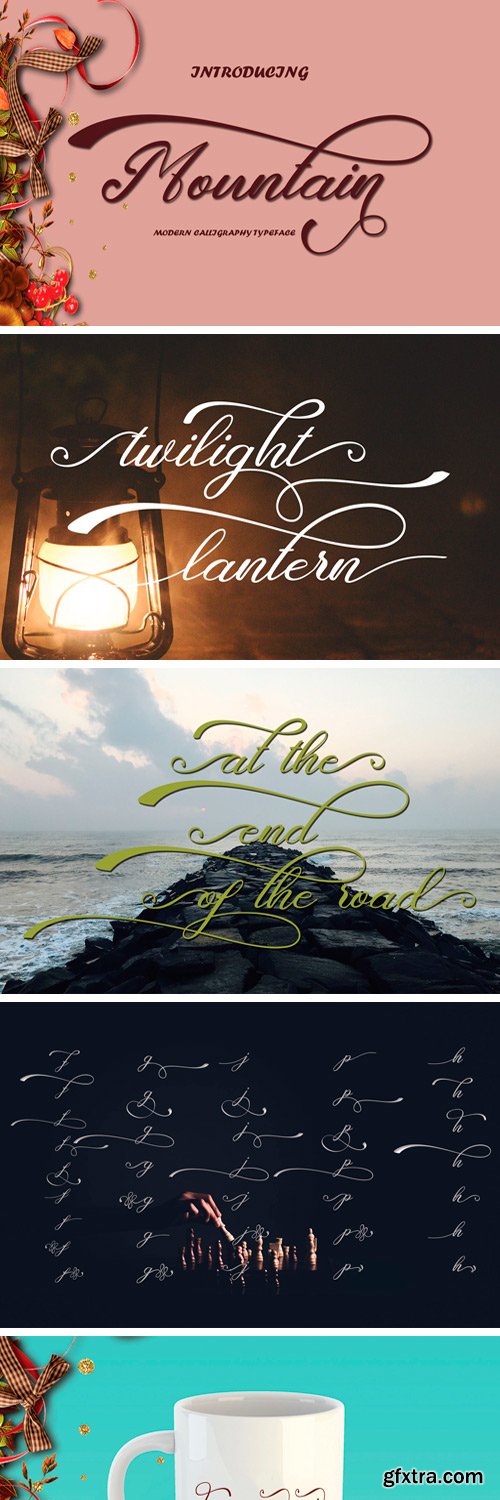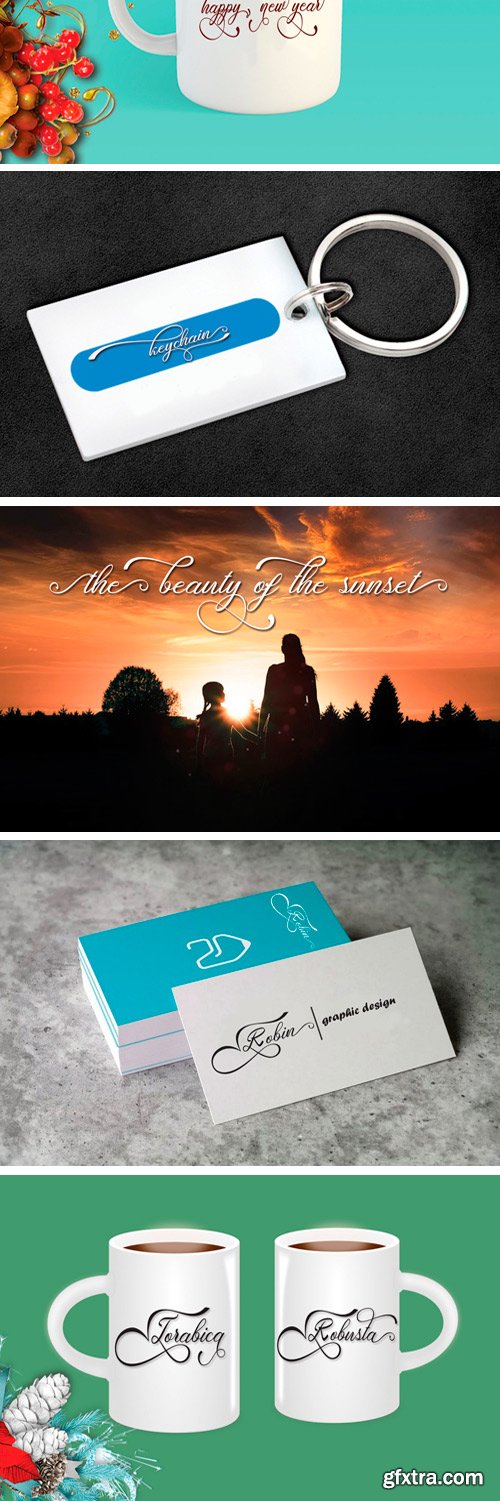
If you want to add an elegant touch to your current project, then don't miss this one, namely Mountain Script. You will get an amazing collection of modern script fonts, each featuring many OpenType features and many languages. Beautiful, modern, and made by hand.
Mountain Script: A very beautiful script with beautiful land, and equipped with fine lines that are perfect for various purposes. Such as titles, signatures, logos, correspondence, wedding invitations, letterhead, signage, labels, bulletins, posters, badges, Branding, Greeting Cards, etc. It comes with an easy-to-use Open Type set, Alternative Style, Scratch, style set, fastener and swash and all to add an authentic touch to your design.